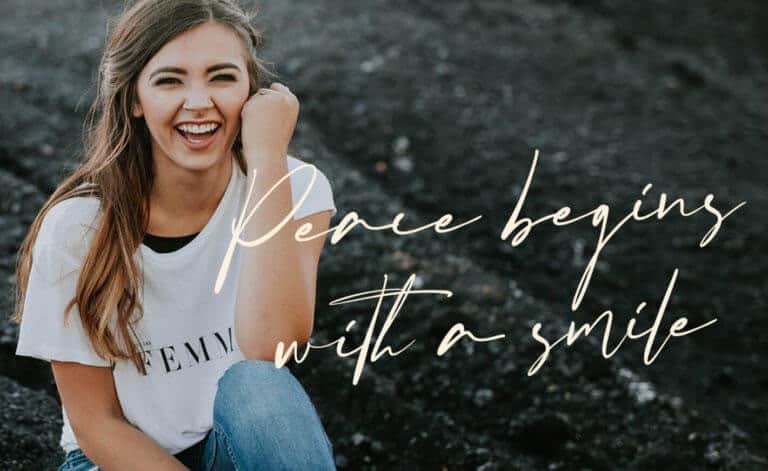
Fatigod Script Font
Fatigod Script Font is a script signature stylish font with elegant, sophisticated and luxury looks. It’s designed and shared by hugefonts. Fatigod Font feels incredibly elegant and flowing. It looks stunning on wedding invitations, thank you cards, quotes, greeting cards, logos, business cards and every other design which needs a handwritten touch. It features a varying baseline, smooth lines, gorgeous glyphs and stunning alternates.
perfect for create hand lettering is an instant and a super handy set of bonus Swash. Ideal for logos, handwritten quotes, product packaging, header, poster, merchandise, social media & greeting cards